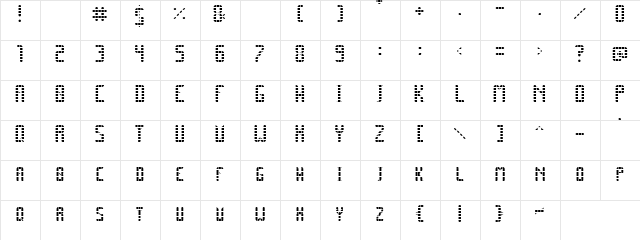
SPACE PEZ Regular
Design Context for SPACE PEZ Typeface
SPACE PEZ is a composed and adaptable typeface that performs quietly and consistently across a wide range of design contexts.